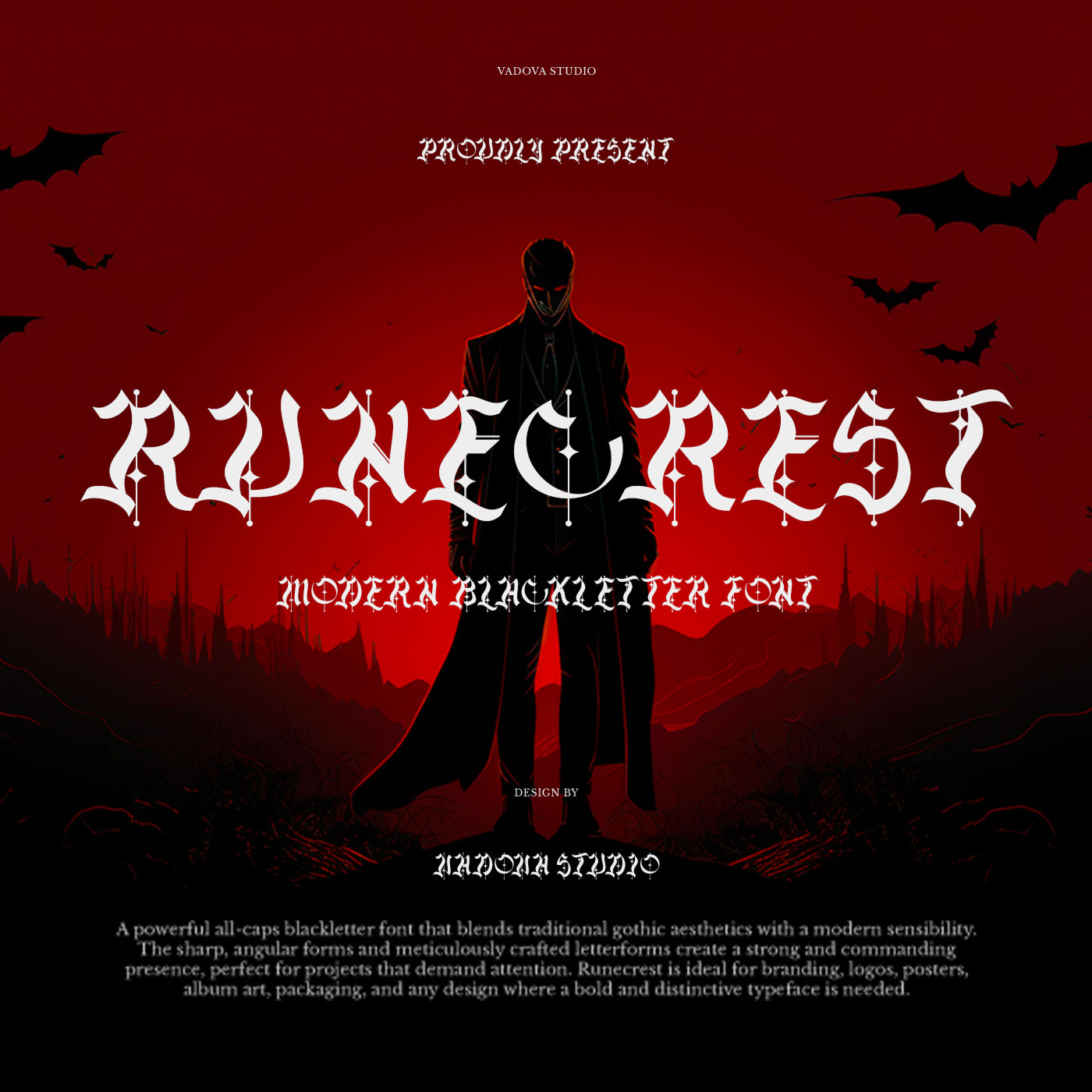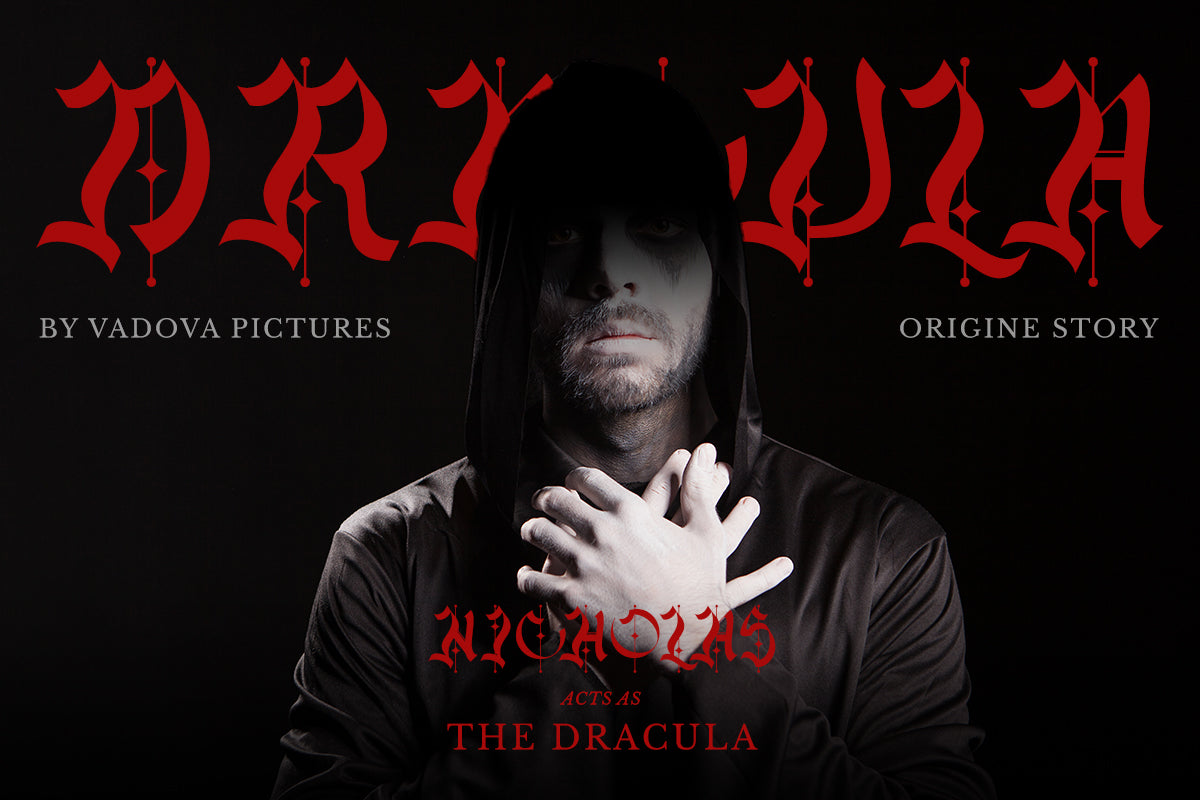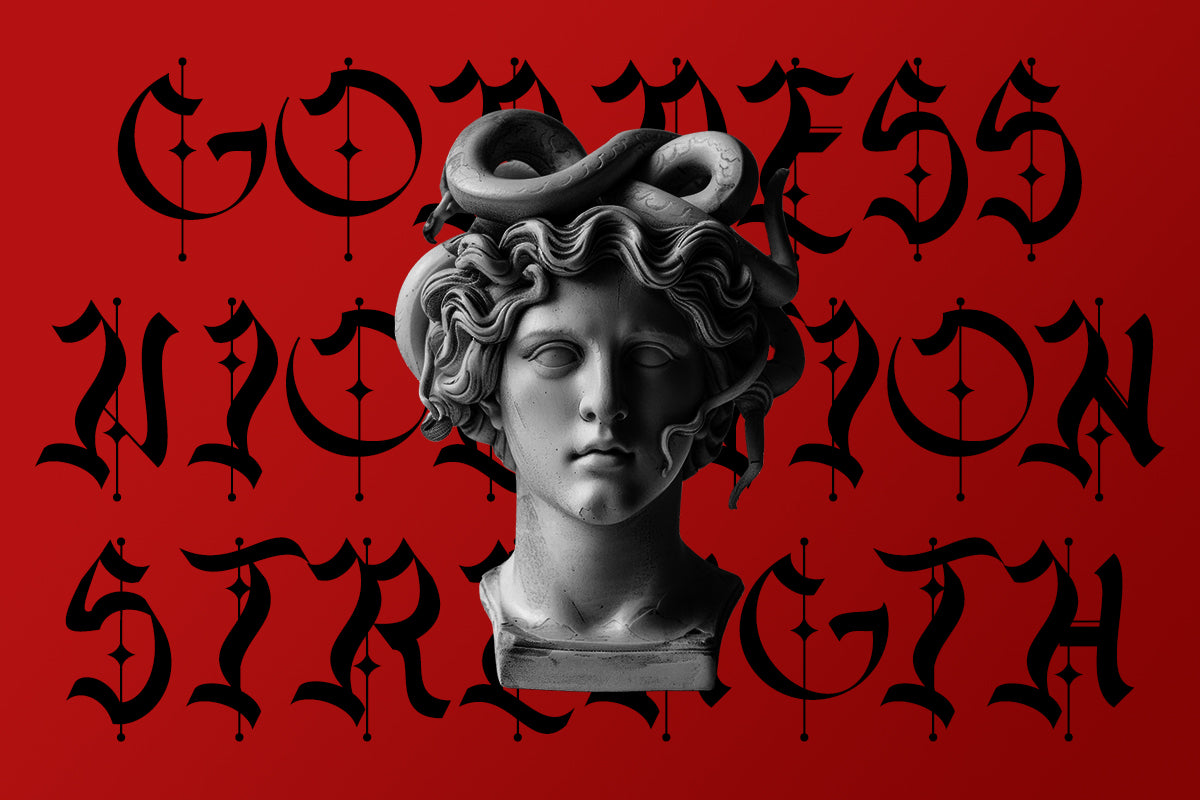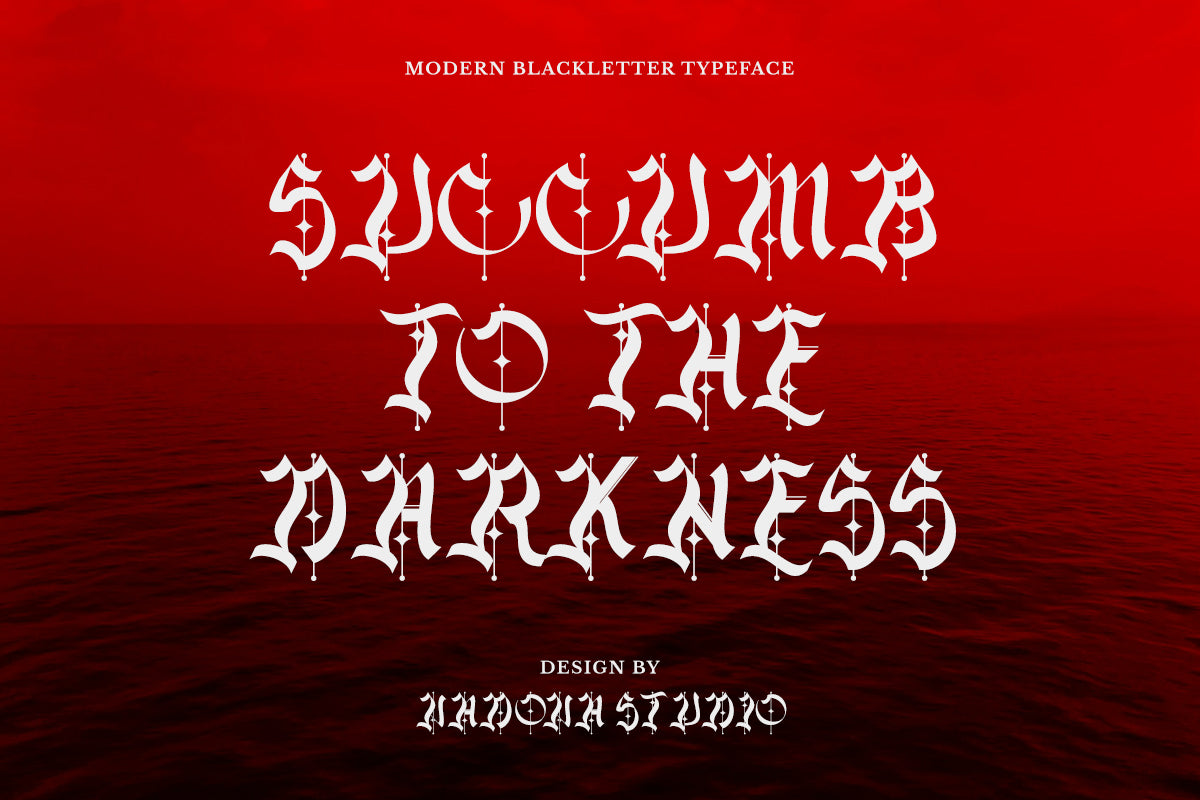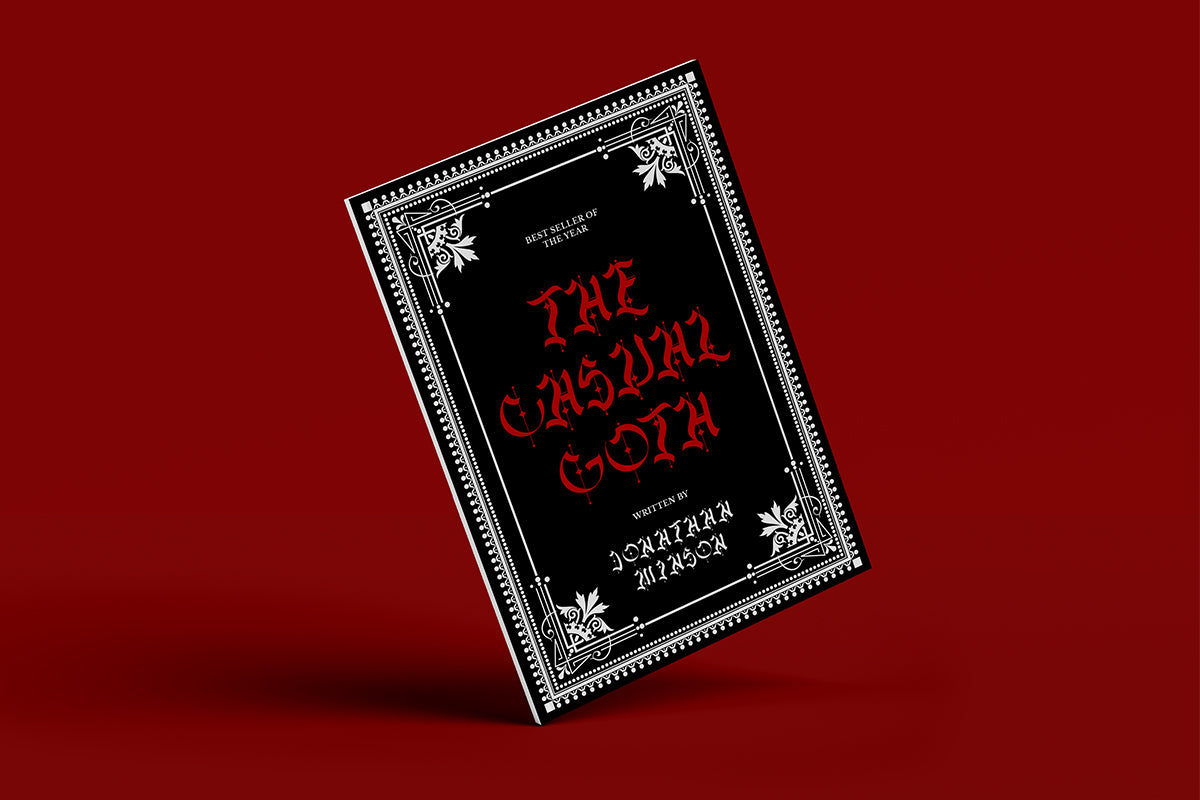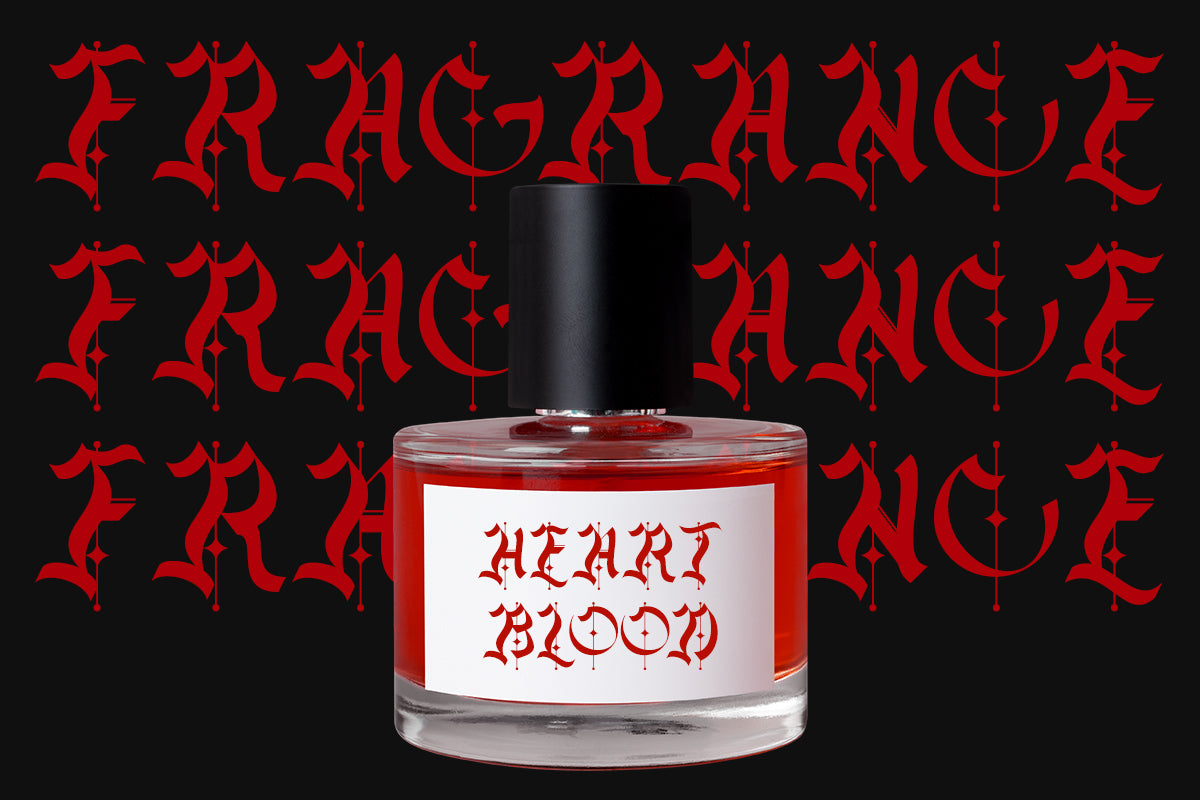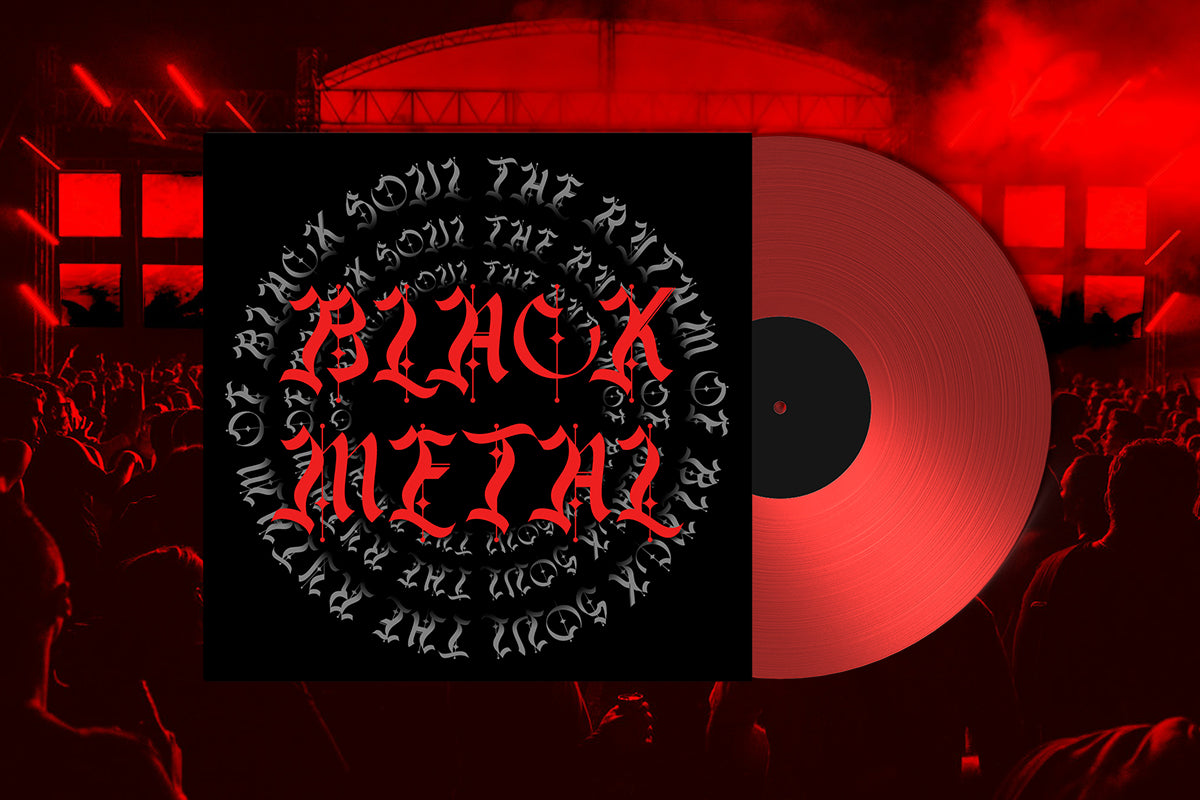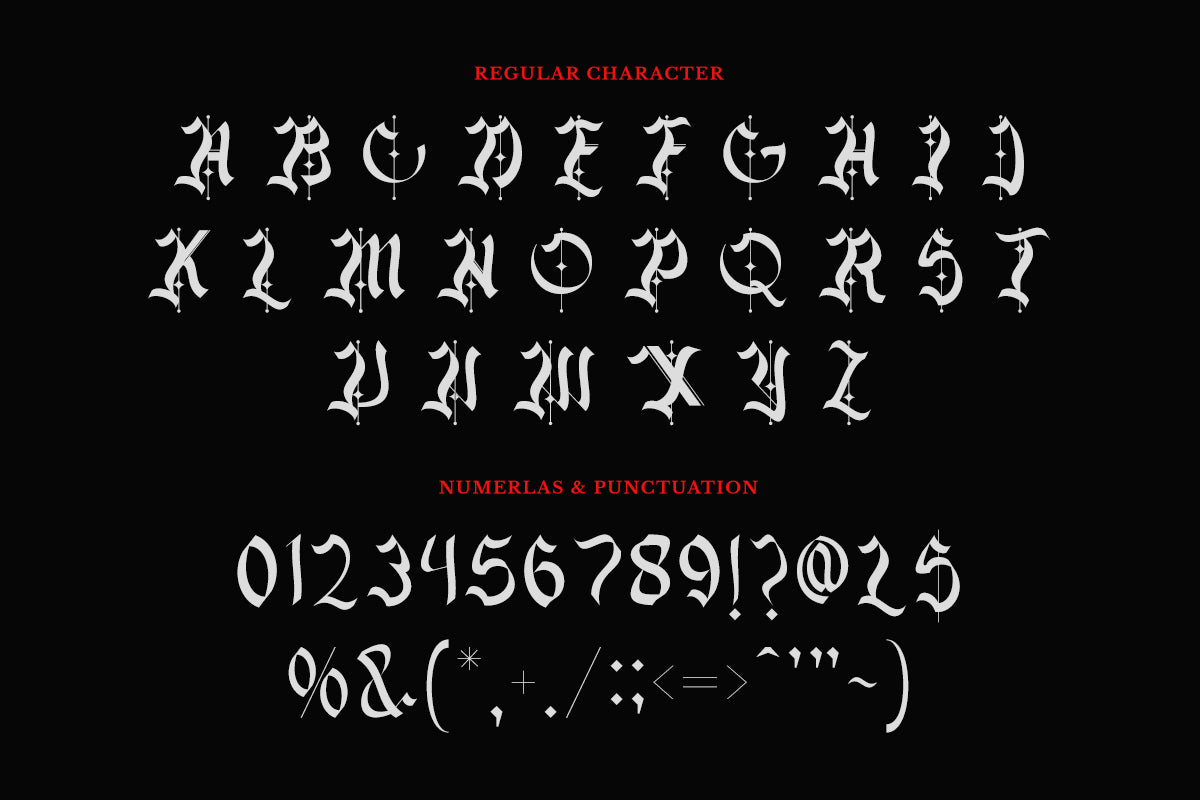
Runecrest Modern Blackletter Font
Runecrest is a modern blackletter typeface defined by sharp angular strokes, ornamental details, and a strong gothic character. The letterforms combine traditional blackletter structure with refined contemporary spacing, creating a bold and dramatic visual presence. Each character is crafted with distinctive cuts and decorative terminals, giving the font a powerful and expressive tone. It includes uppercase, lowercase, numerals, and punctuation, delivering a complete and cohesive type system.
Relevance and Use Cases is perfect for branding projects that require a strong and dramatic visual identity such as music artwork, posters, logos, and editorial headlines. It fits themes with gothic, dark, vintage, or bold stylistic direction while maintaining a modern edge. The distinctive character shapes create impactful typography for attention-grabbing designs.
Runecrest is a modern blackletter typeface featuring angular strokes, ornamental details, and decorative terminals, with a complete character set including uppercase, lowercase, numerals, and punctuation. It is available in TTF, OTF, and WOFF formats.